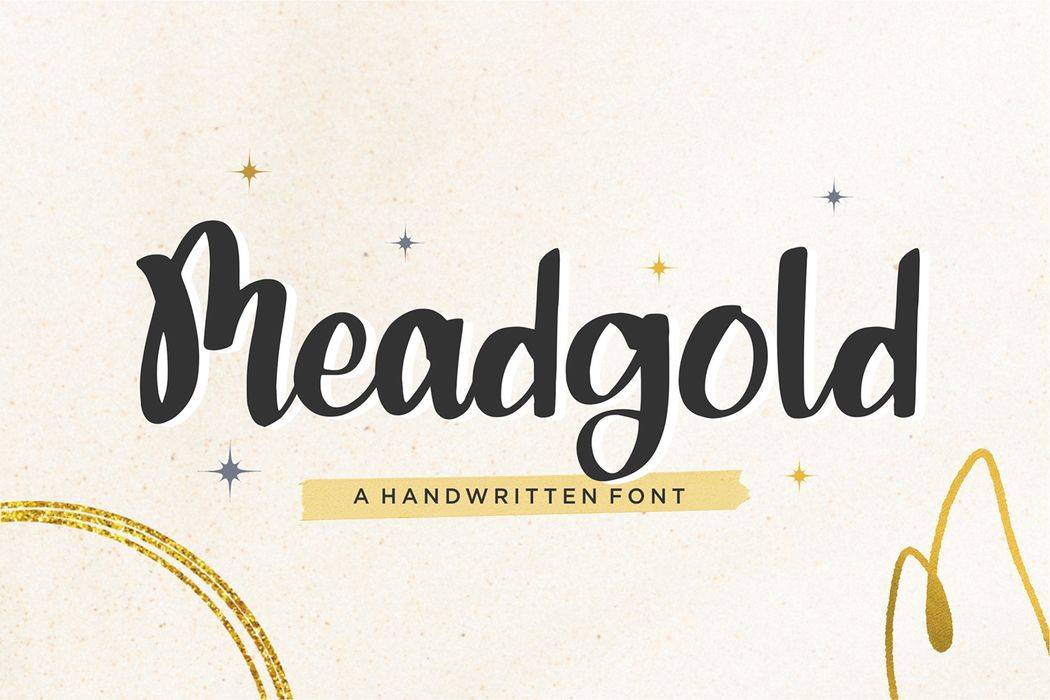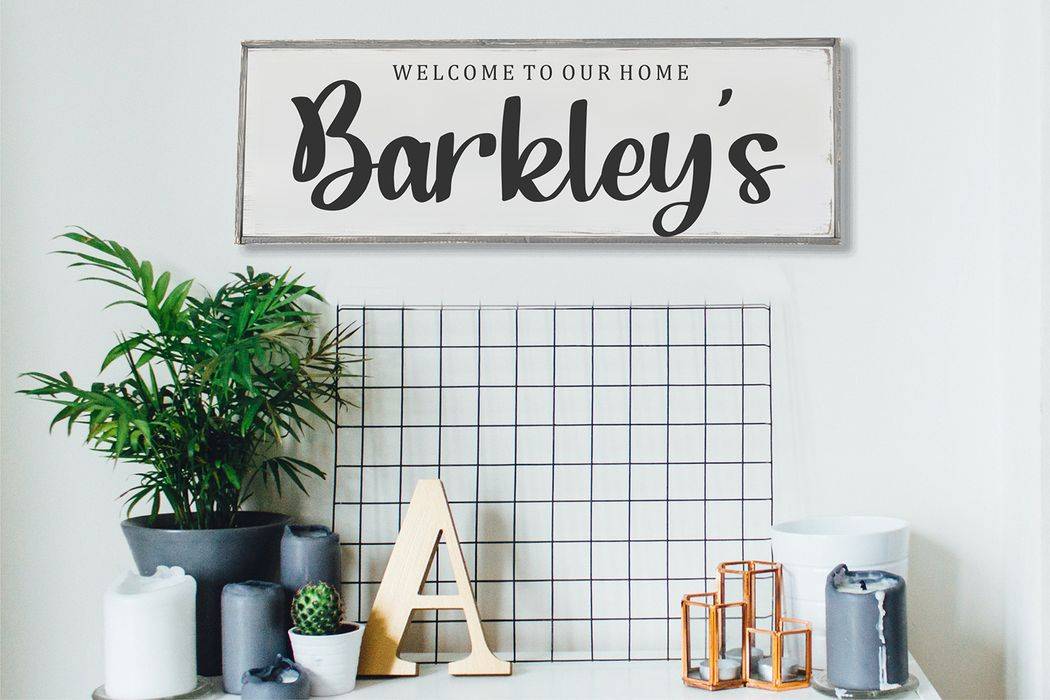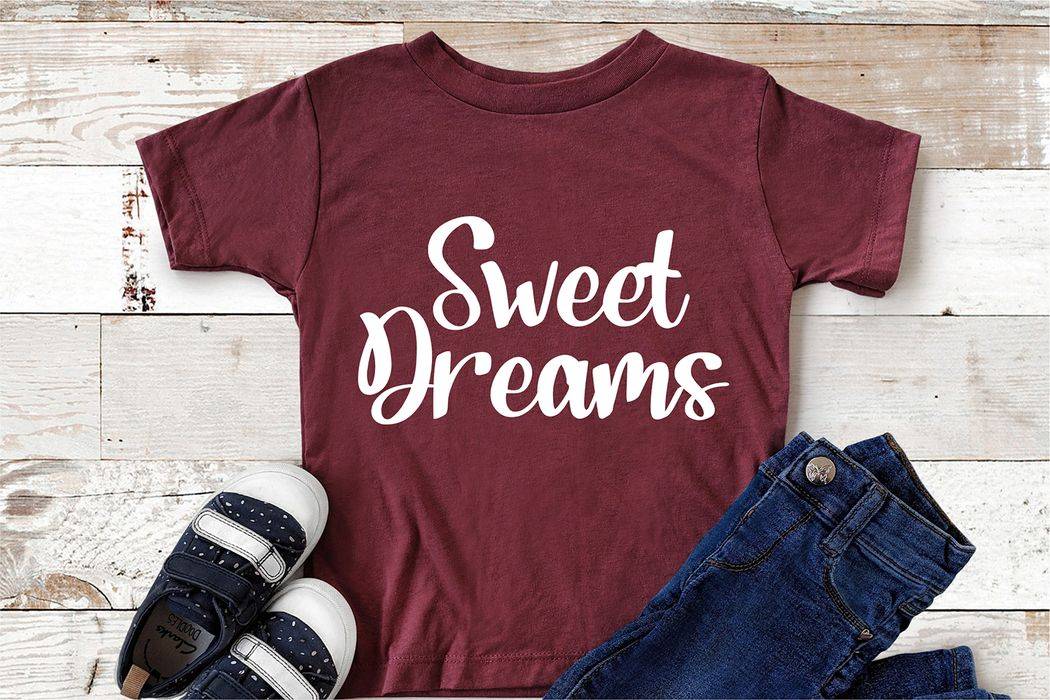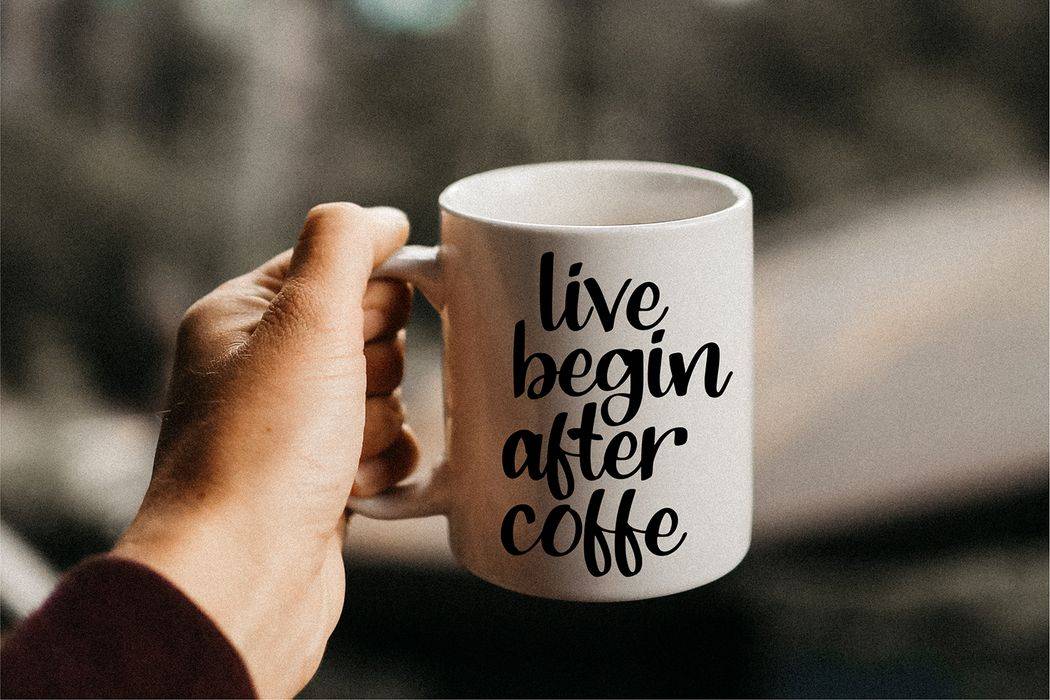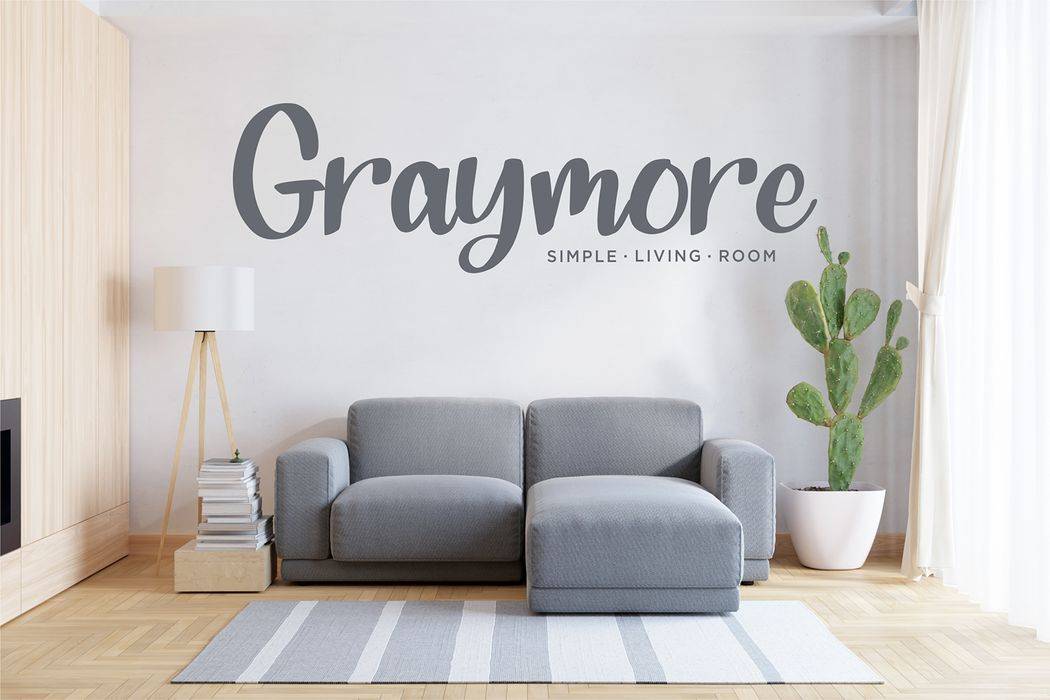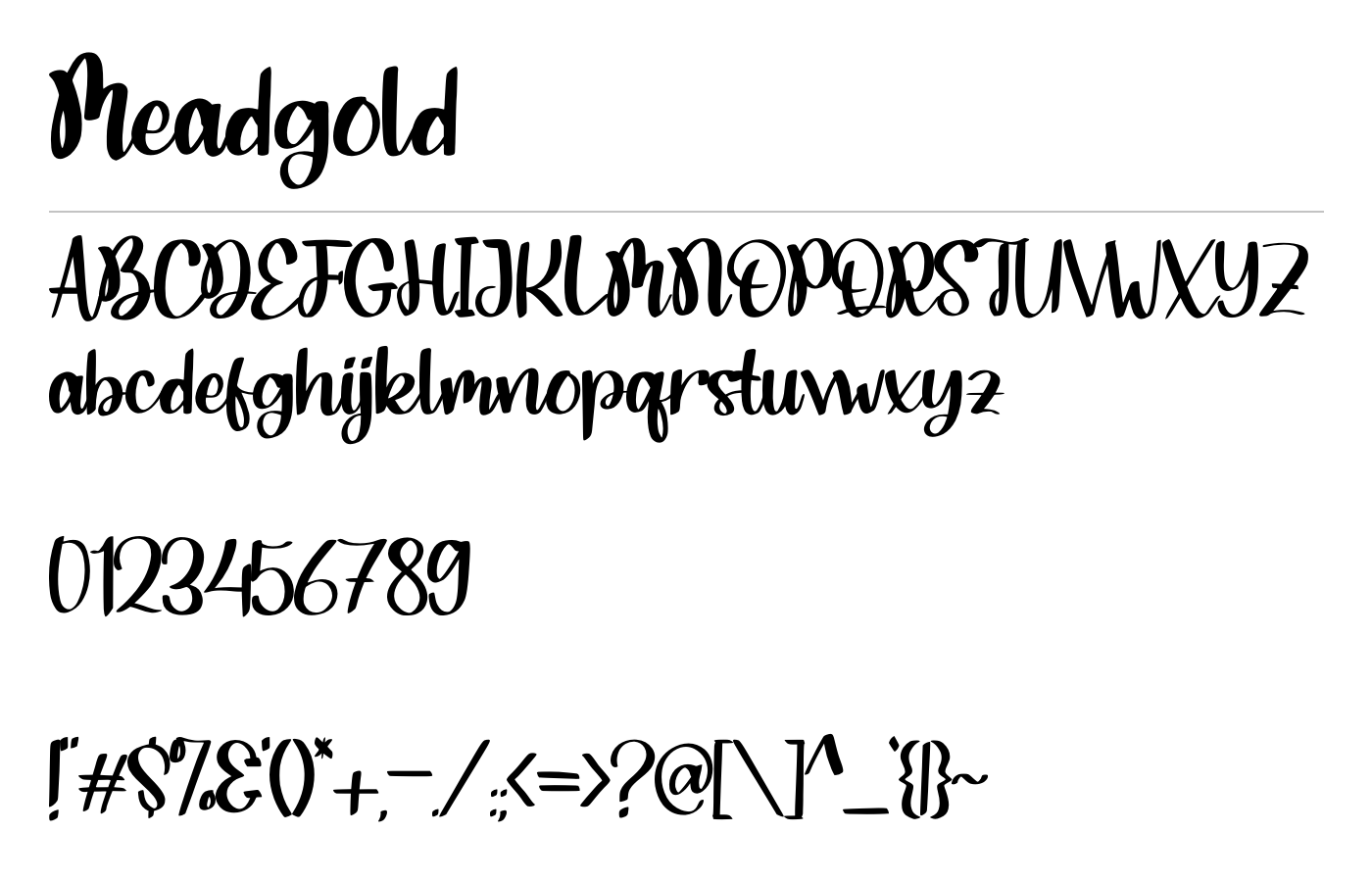
Meadgold is a playful and elegant script font with a casual yet refined feel, featuring smooth, connected strokes and moderate contrast. Its lively letterforms, including distinctive loops and swashes, make it perfect for creative branding, invitations, and headlines that seek a friendly, handcrafted touch. This font shines in designs that need a warm and personal style while maintaining readability and charm.
Meadgold Font